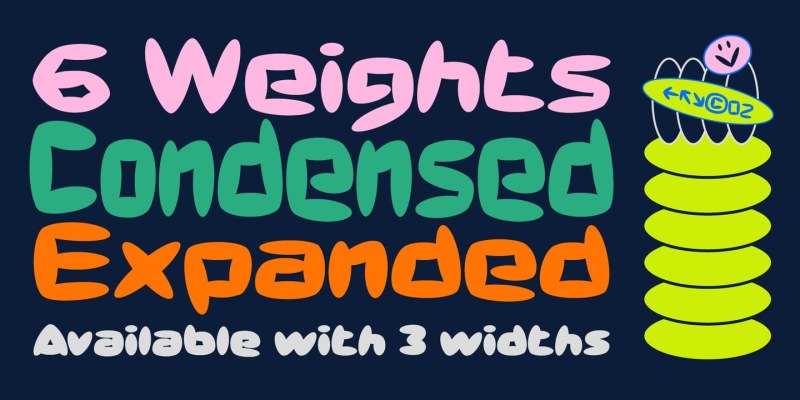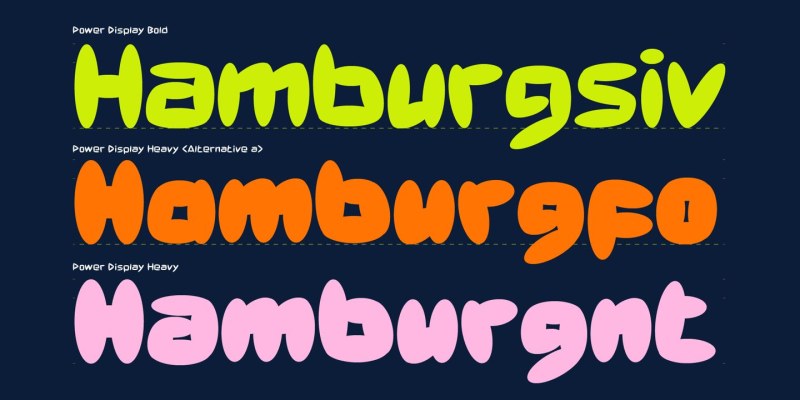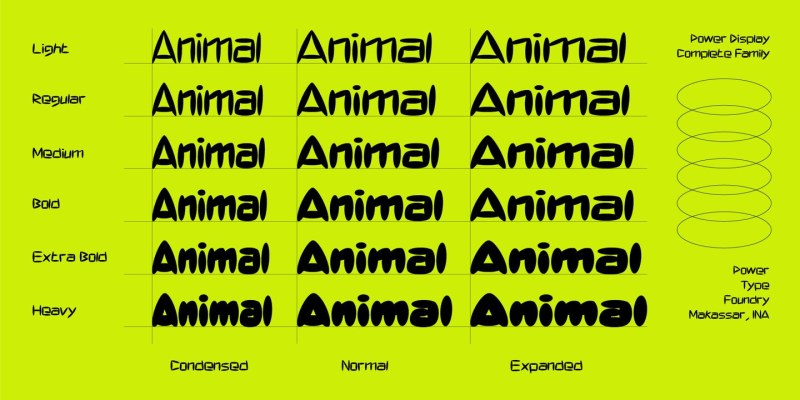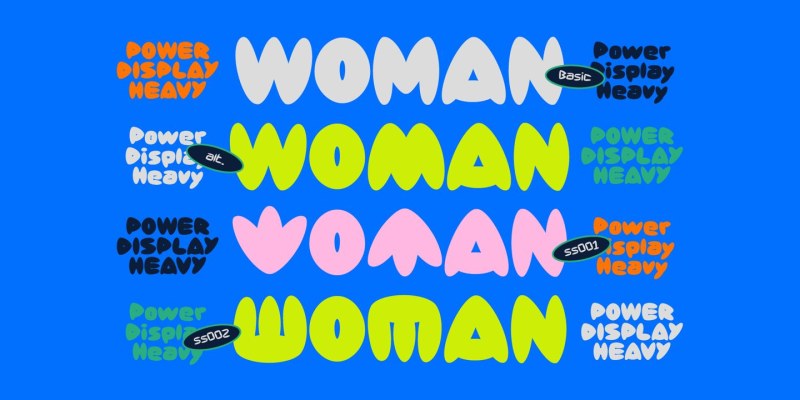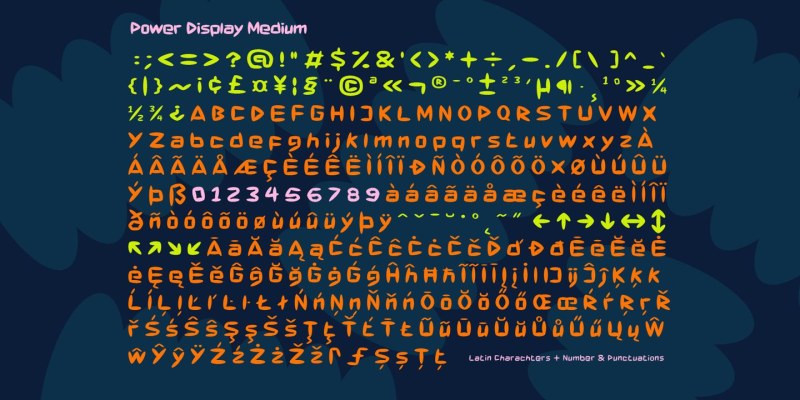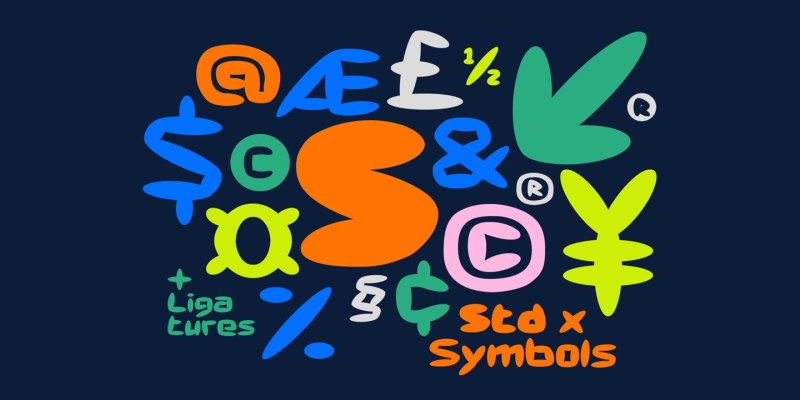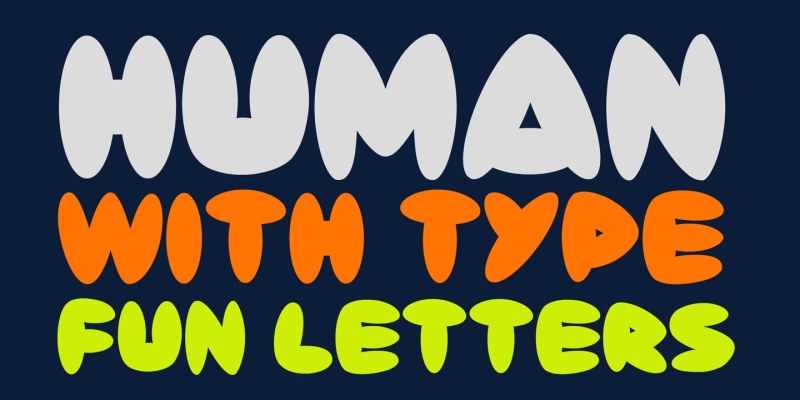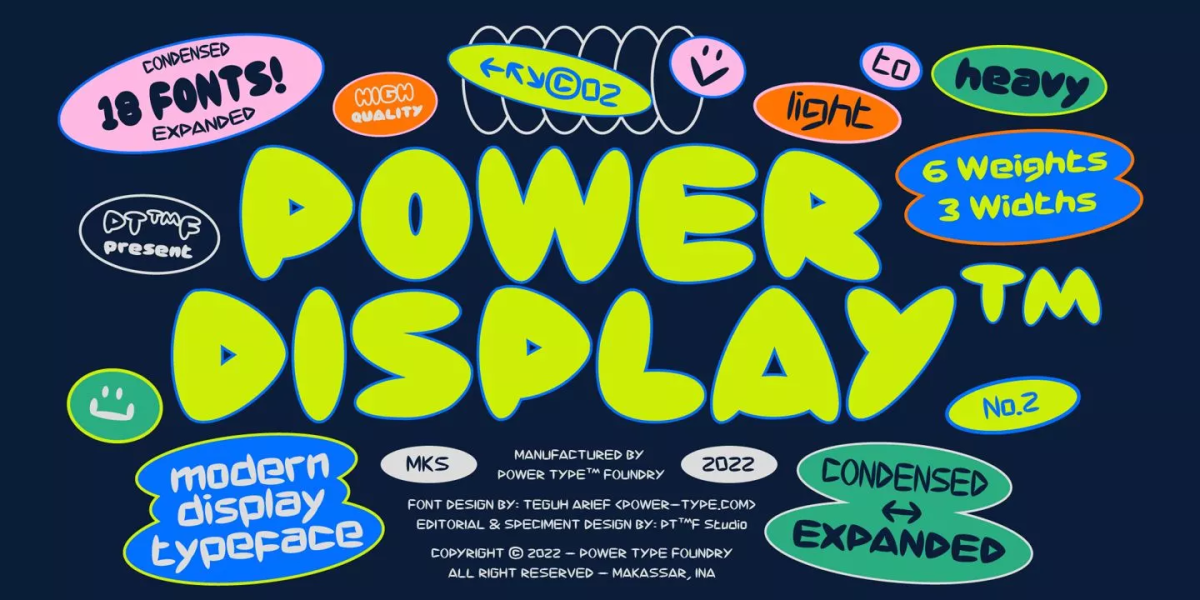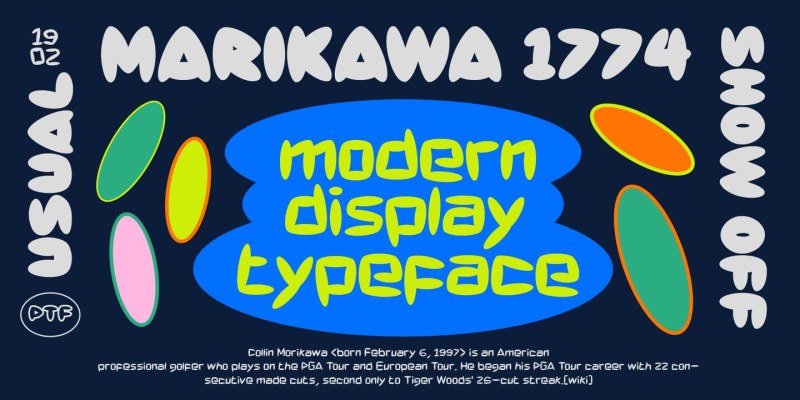
Power Display Font Family
Power Display Inspired by Fun cartoon style combined with modern style. This Playful Font Comes In Three Widths; Condensed, Normal, Expanded. This Font Can Be Used For Modern And Vintage Designs, Also Can Be Easily Paired With Some Graphic Elements (Illustration, Photography) This Font Perfect For, Logotype, Branding, Title, And Packaging.
Where Power Display Font Family works best
Complete brand systems
With multiple weights, Power Display Font Family can carry a whole identity — logo, headings, body copy and captions — consistently across print and web.
Websites & apps
Families let you set hierarchy with weight instead of switching typefaces, which keeps interfaces fast and coherent.
Print collateral
Brochures, catalogues and business cards benefit from a family that covers display and text sizes.
What is Power Display Font Family good for?
Power Display Font Family is a Font Family typeface tagged Branding, Condensed, Display, Font Family. It works well for headlines, logos, posters, social media graphics and branding projects that need a distinctive font family look.